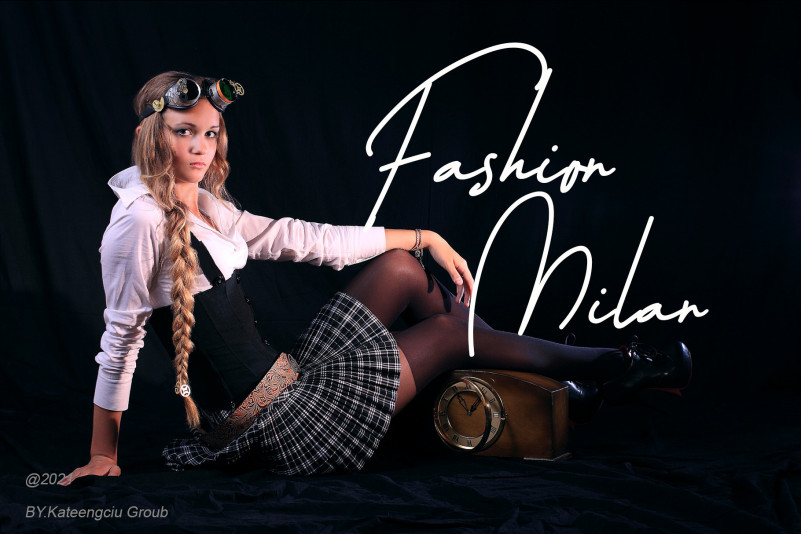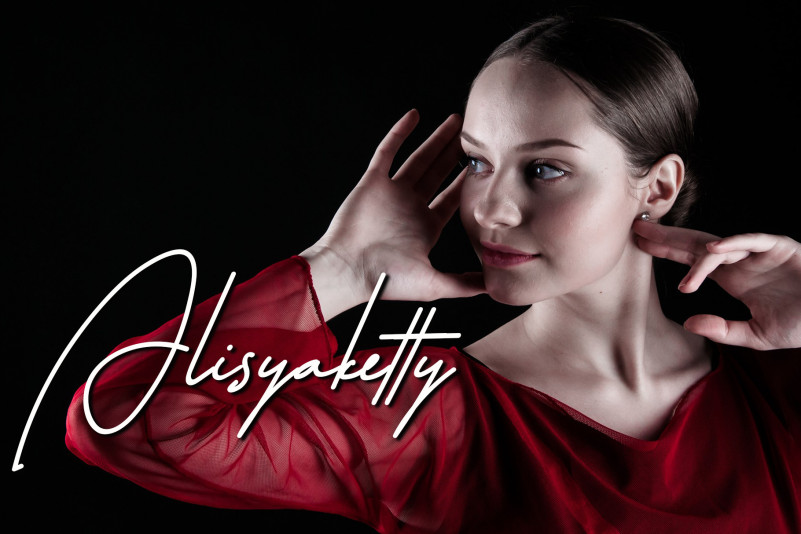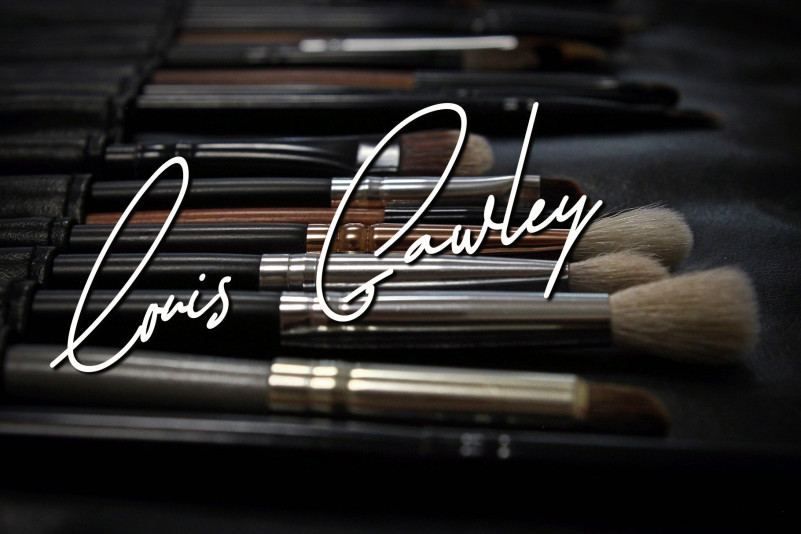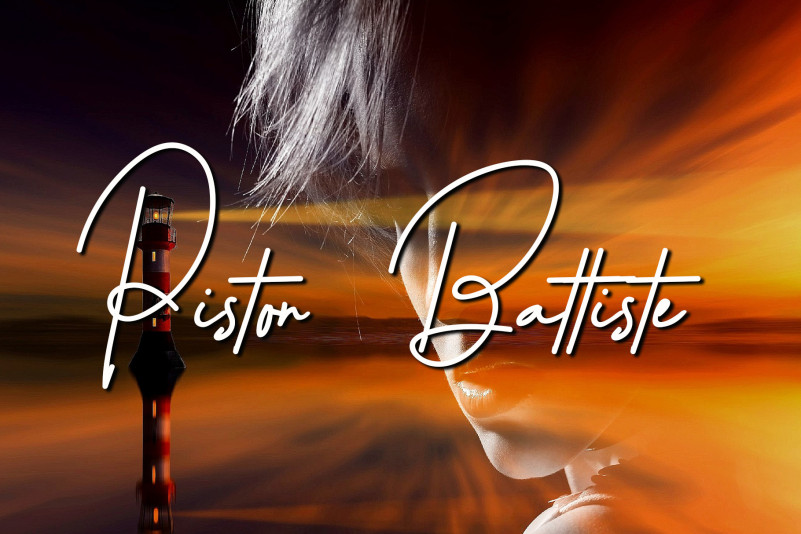
Young Master Font
Young Master Handwritten Font
This is a sweet, all round and flexible handwritten font. Warm, quirky and jolly, this font will turn each of your project ideas into real works of art. Have fun with this beautiful font and explore its endless variations.